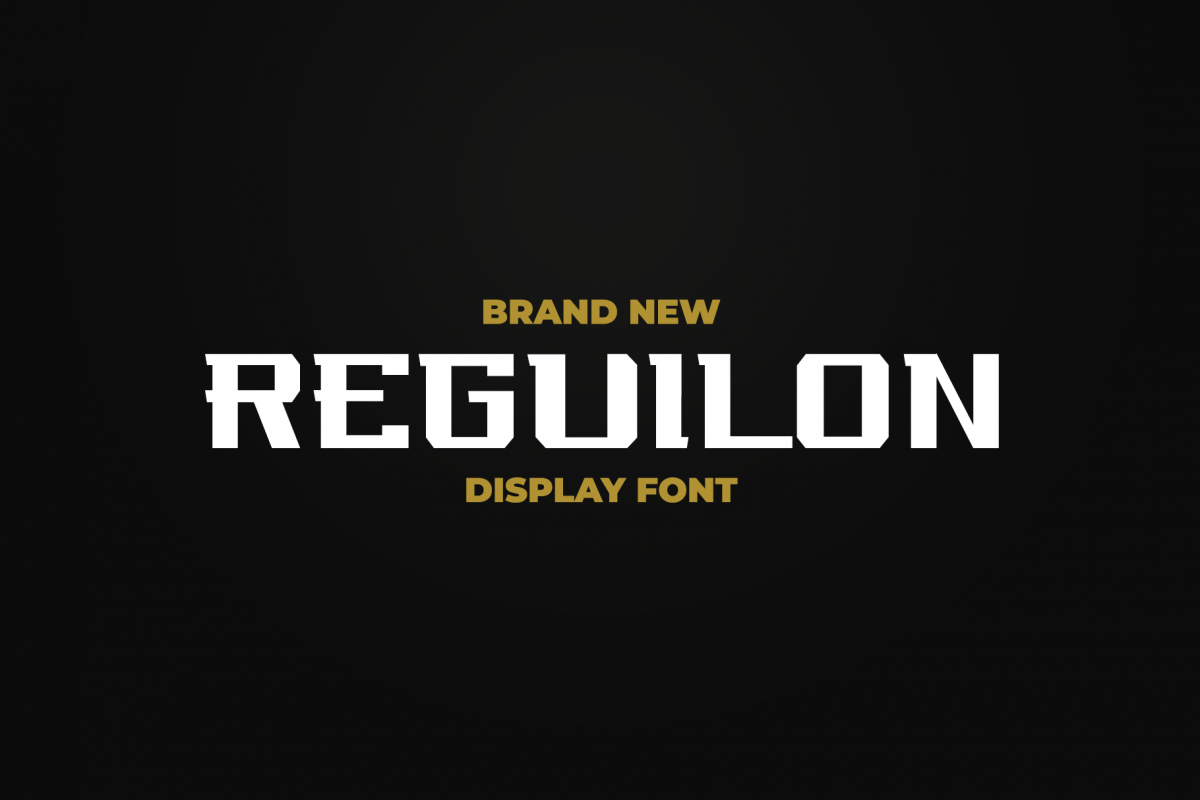
REGUILON Dispplay Font
Reguilon Exclusive Display font, is our new item that suitable for your team logo, or community logo.
Great for Logo, Sticker, Jersey, Invitation Card, Brochure, etc.